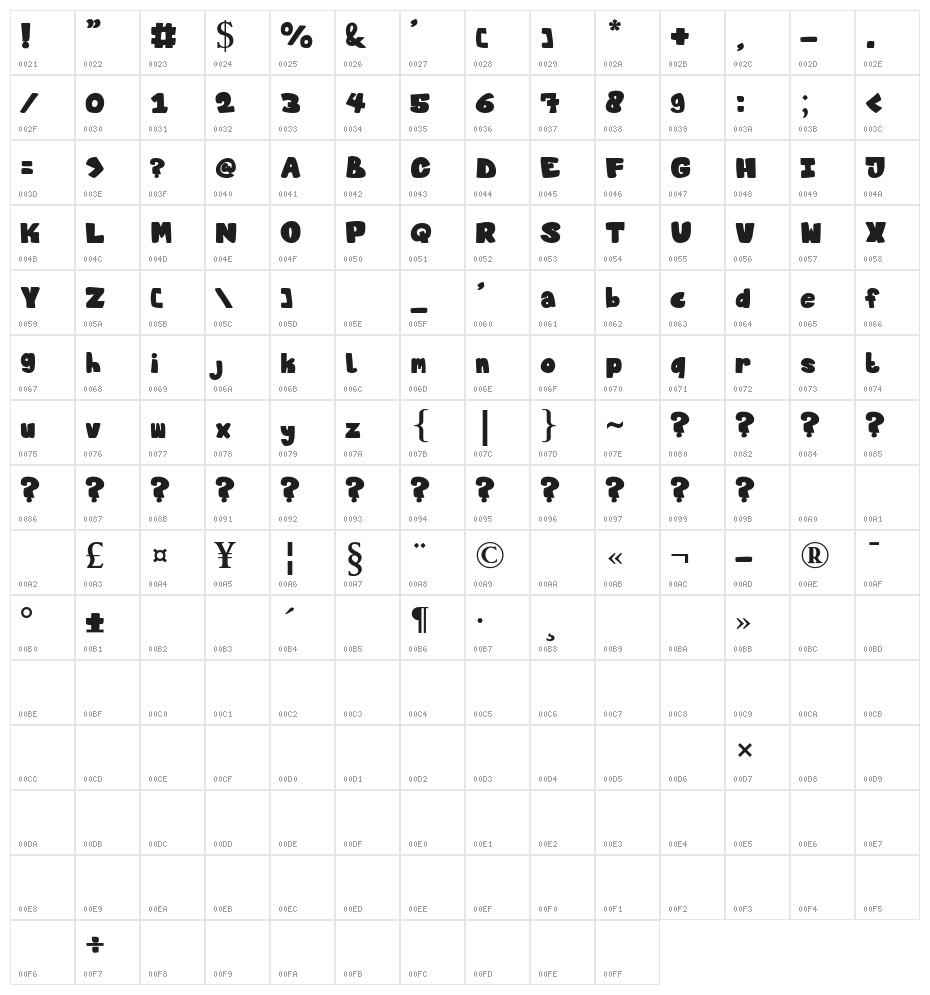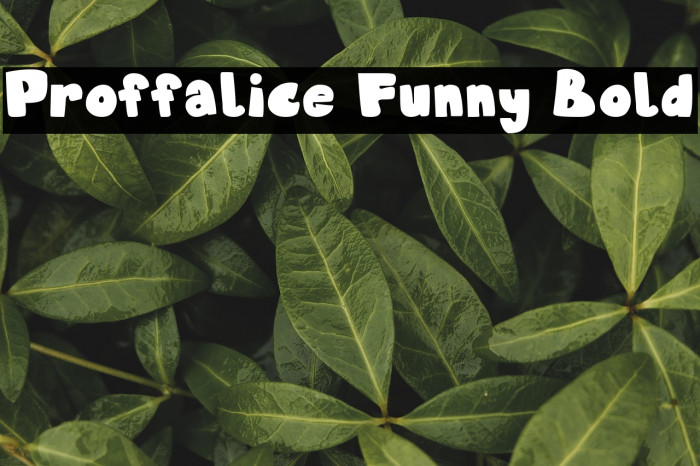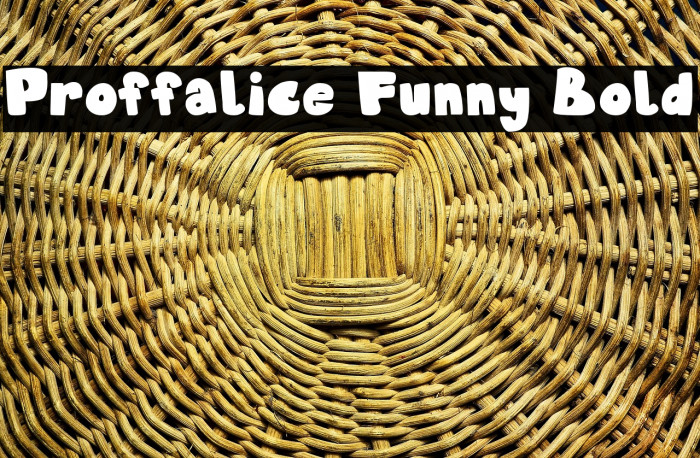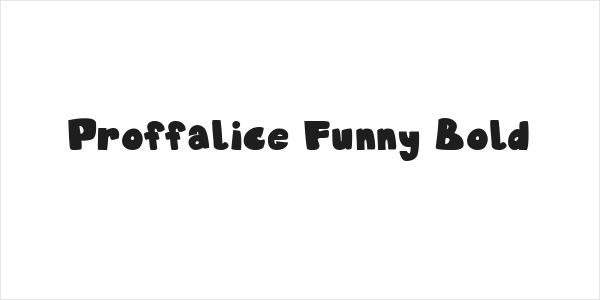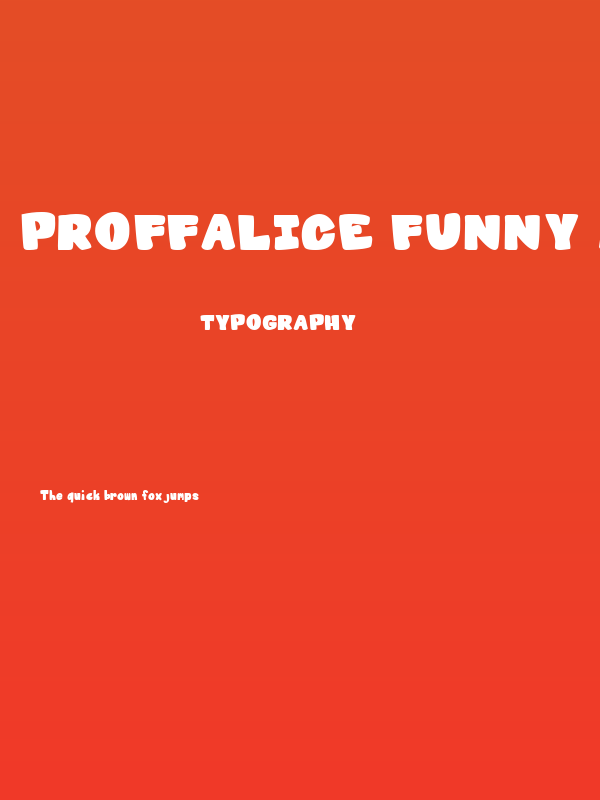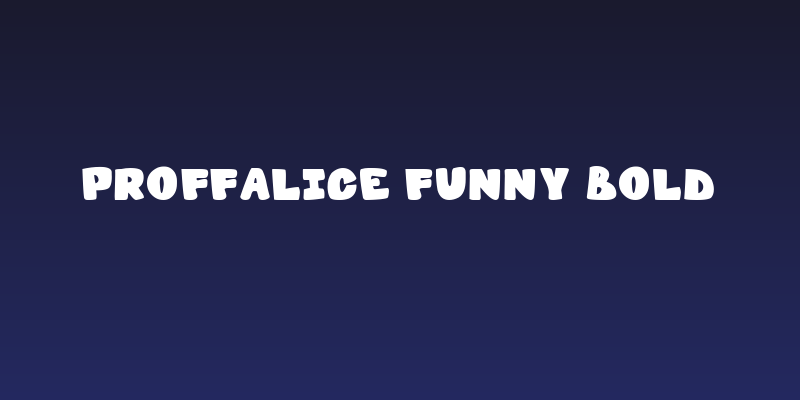
Proffalice Funny Bold Font
Proffalice Funny Bold Description
This playful and bold font features thick, rounded characters with a whimsical and informal style. The letters are slightly irregular, giving them a hand-drawn appearance that adds to their charm. The uppercase and lowercase letters maintain a consistent weight, creating a cohesive look across the alphabet. Numbers and special characters are equally bold and playful, making them suitable for a variety of creative uses. The font's unique style is perfect for projects that require a fun and engaging visual element.